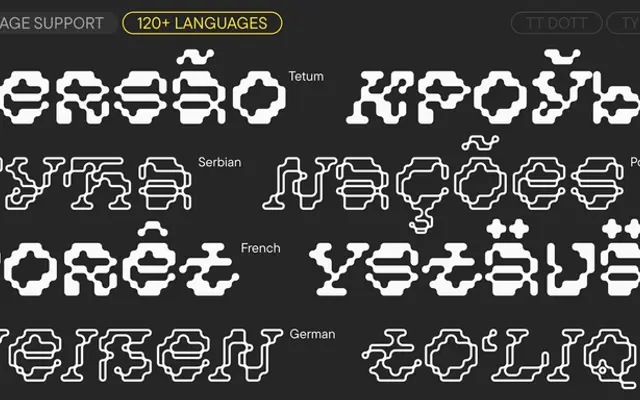
TT Dott
TypeType · Kseniya Karataeva, Antonina Zhulkova, Ivan Gladkikh · 2026
A pixel grotesque that replaces the conventional square pixel with a circle, producing a warm, embroidery-like rhythm suited to festival, branding and packaging work at large sizes.
Developed within TypeType's Creative Lab, TT Dott mixes upright and slanted glyphs to introduce a sense of movement and irregularity that pushes it away from the cold, mechanical associations of most pixel fonts. Two styles, Solid and Outline, can be used independently or layered, and a Static stylistic set offers calmer, upright alternatives to the default dynamic characters. Each style carries 605 glyphs, coverage for over 120 languages, and a set of thematic icons.
A display typeface built on circular pixels rather than square ones, creating a fluid, organic rhythm distinctly at odds with conventional pixel typography. Its experimental, decorative character places it firmly in the display category.